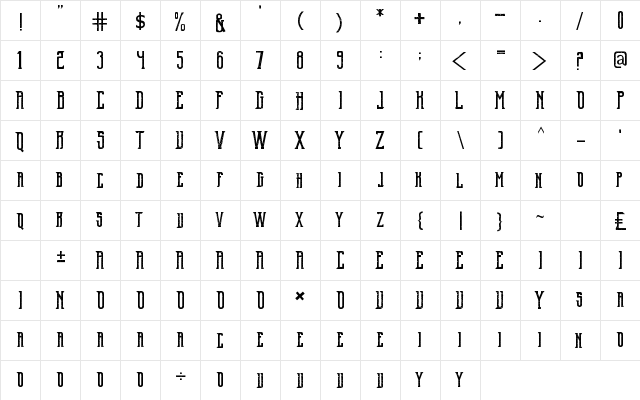
Old Excalibur Vintage Regular
| Foundry | Edric Studio |
| Designer | Aghnia Nurul Yasmine |
Design Context for Old Excalibur Vintage Typeface
Old Excalibur Vintage has the warm character of retro typography — evoking diners, record sleeves, and the golden age of print advertising.
Font Pairing: Combine Old Excalibur Vintage with a simple slab or neutral sans — period-accurate companions reinforce the vintage feel without competing for attention.
Pro Tip: Use Old Excalibur Vintage for headlines and pull quotes rather than body copy — its personality is best appreciated in short, focused bursts.